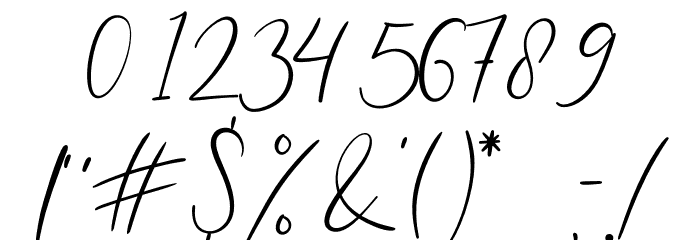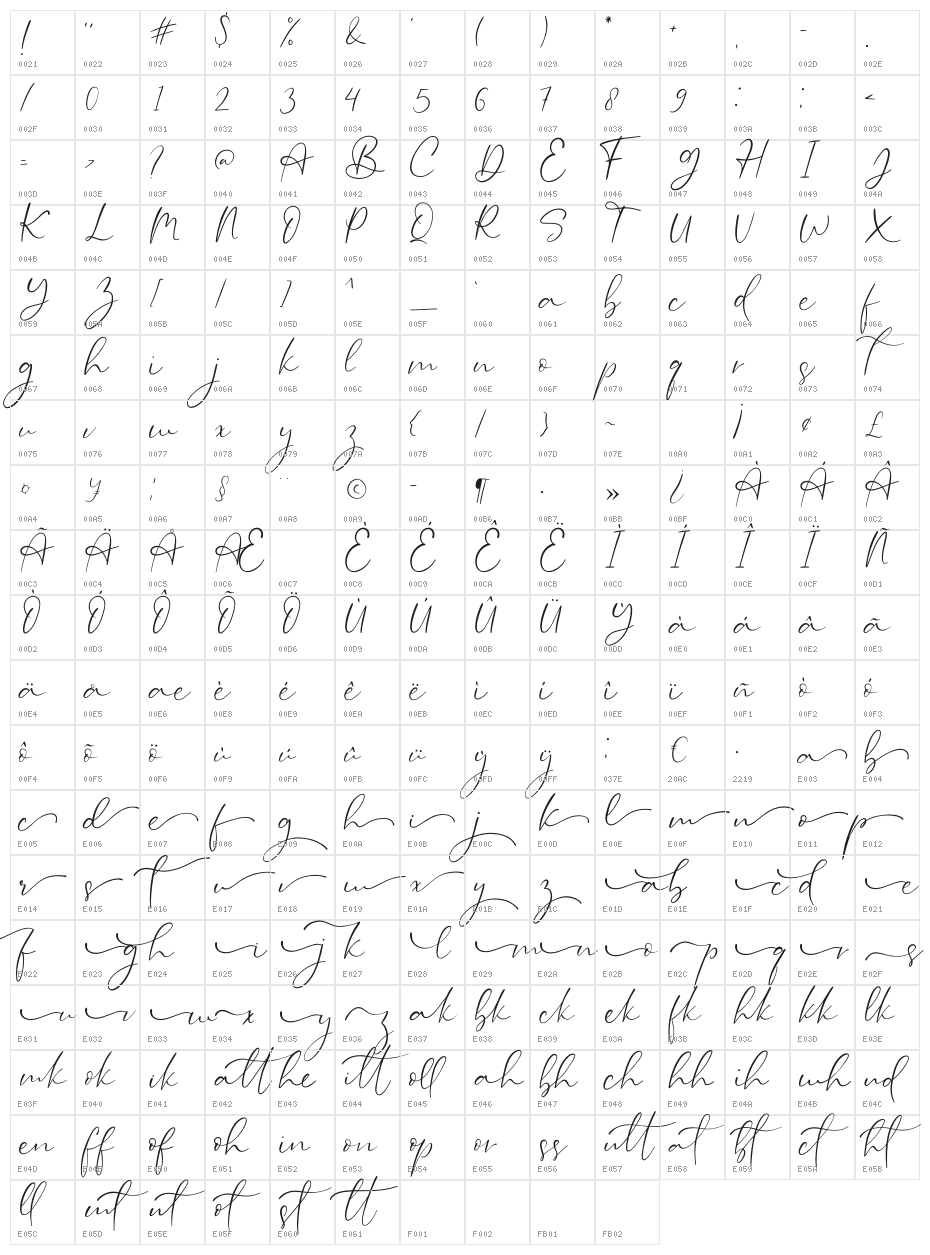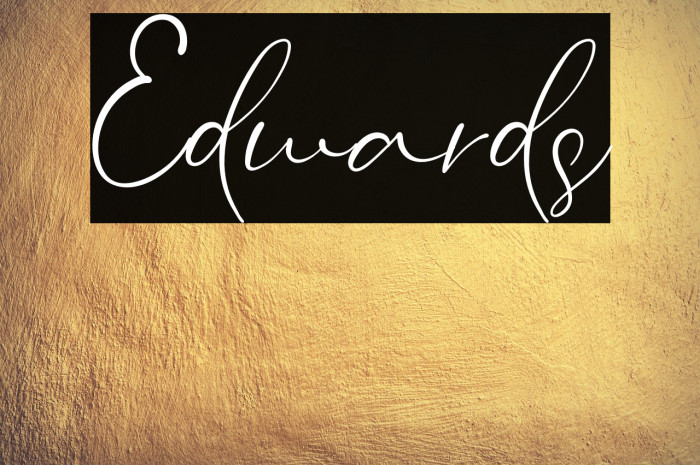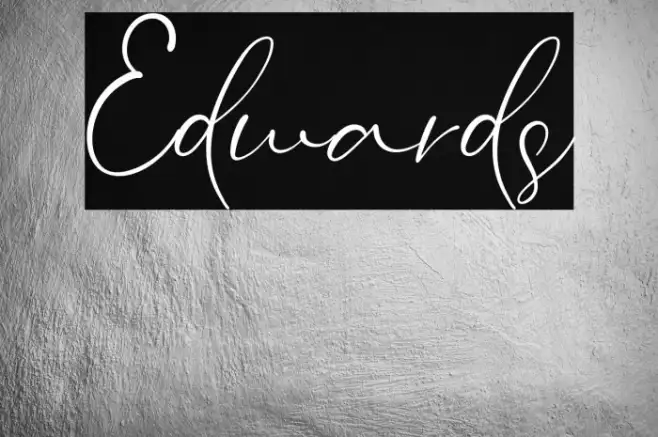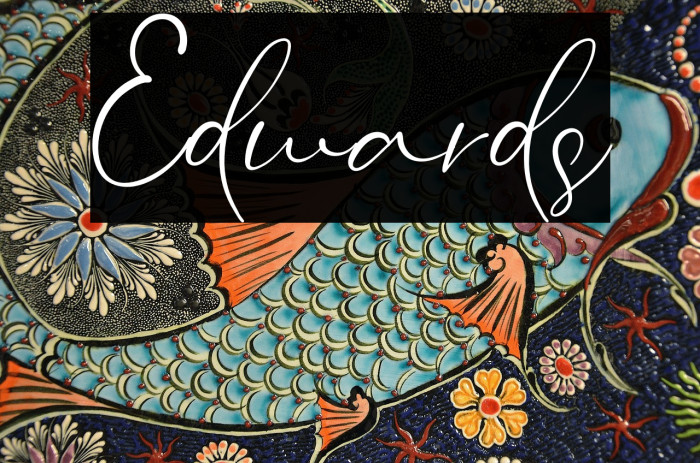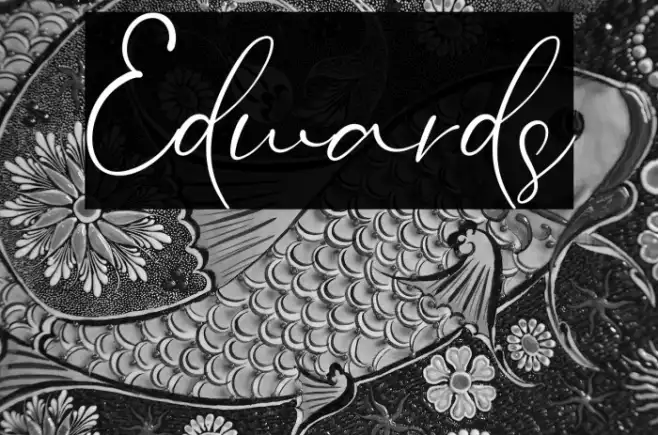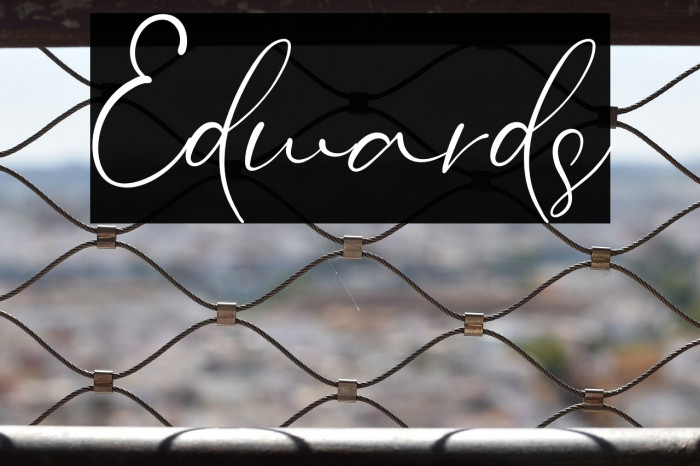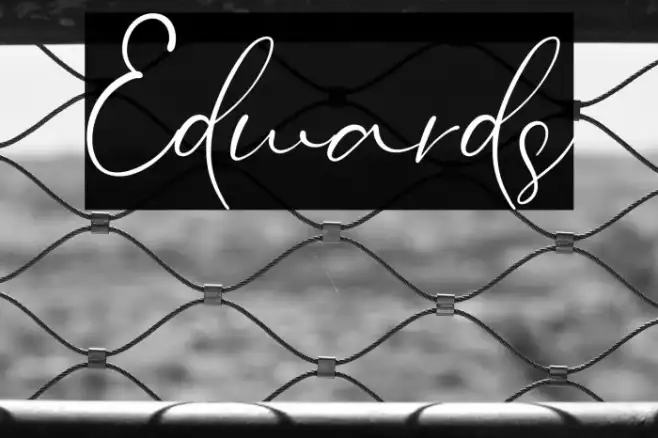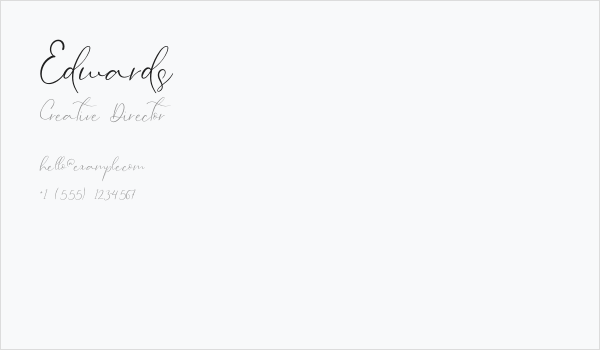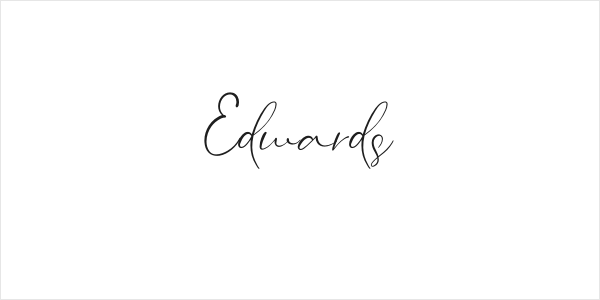
Edwards Font
Edwards Description
This font exudes a graceful and elegant handwritten style, characterized by its fluid and flowing letterforms. The uppercase letters are tall and slender, with a slight slant that adds a dynamic feel. The lowercase letters are more intricate, with loops and flourishes that enhance its decorative appeal. The numerals maintain the same fluidity, ensuring consistency throughout. Special characters are thoughtfully designed, complementing the overall aesthetic. The font's delicate strokes and smooth curves make it ideal for projects that require a personal touch.
| Proposed Projects | Ideal for wedding invitations, greeting cards, personal branding, and elegant packaging designs. |